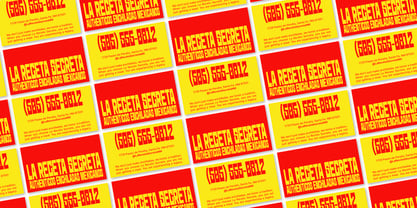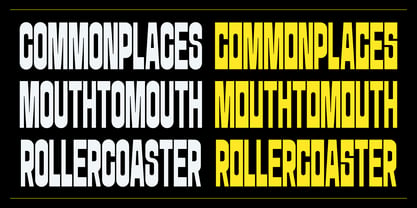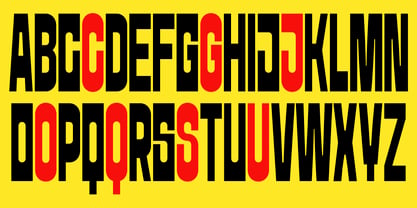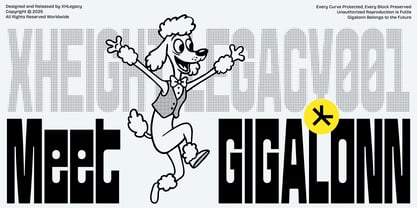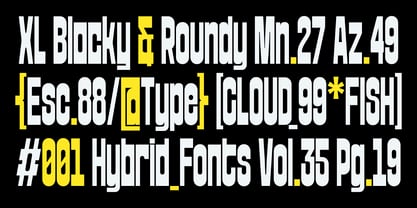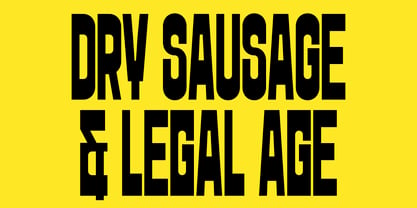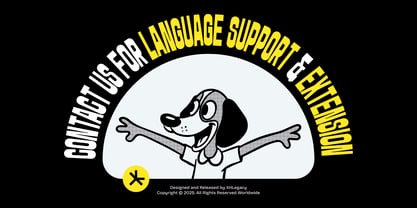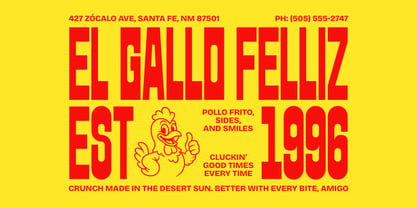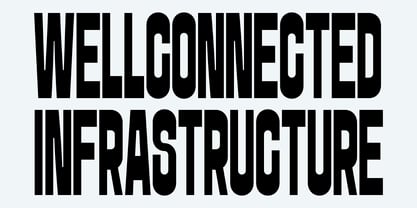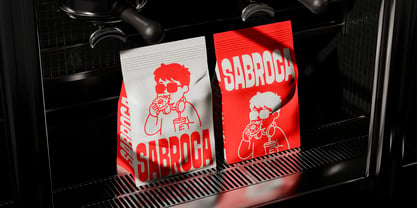
XL Gigalonn
by XHeight Legacy
The XL Gigalonn Font Family was designed by Friedrich Bernhardt and published by XHeight Legacy. XL Gigalonn contains 2 styles and family package options. More about this family
Gigalonn is a striking display typeface designed for impactful, space-efficient applications. It excels in editorial headlines, posters, packaging, and branding systems that require a bold visual presence. Its unique characteristic is its dual personality, seamlessly transitioning between rounded and block forms. Designers can opt for one style or blend both to establish a distinctive rhythm that conveys warmth and strength, playfulness and authority. This adaptability allows Gigalonn to fit a variety of moods and contexts, transitioning from soft and approachable to structured and assertive while maintaining clarity. It pairs effectively with simple grotesques or neutral sans-serifs, providing ample space for its geometric features to shine. The design is rooted in a study of tension and harmony, examining the coexistence of curved and rigid forms within a single structure. As an exploration of duality, Gigalonn embodies the intersection of human expression and graphic precision, delivering a cohesive font that harmonizes emotion with form.